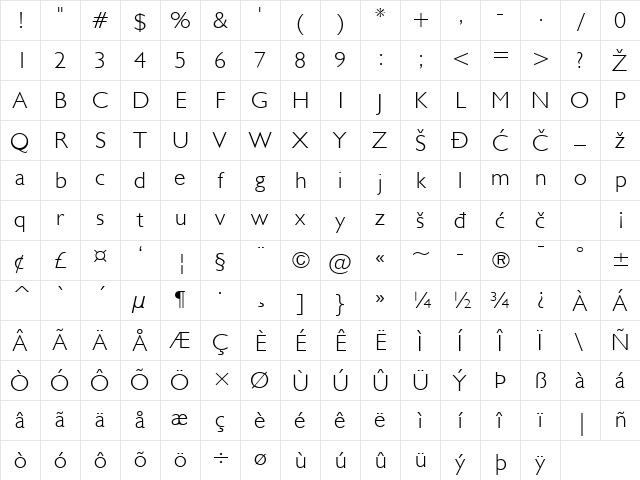
Humanist521Light is a composed and adaptable typeface that performs quietly and consistently across a wide range of design contexts. Its slender proportions lend an understated elegance to any composition.